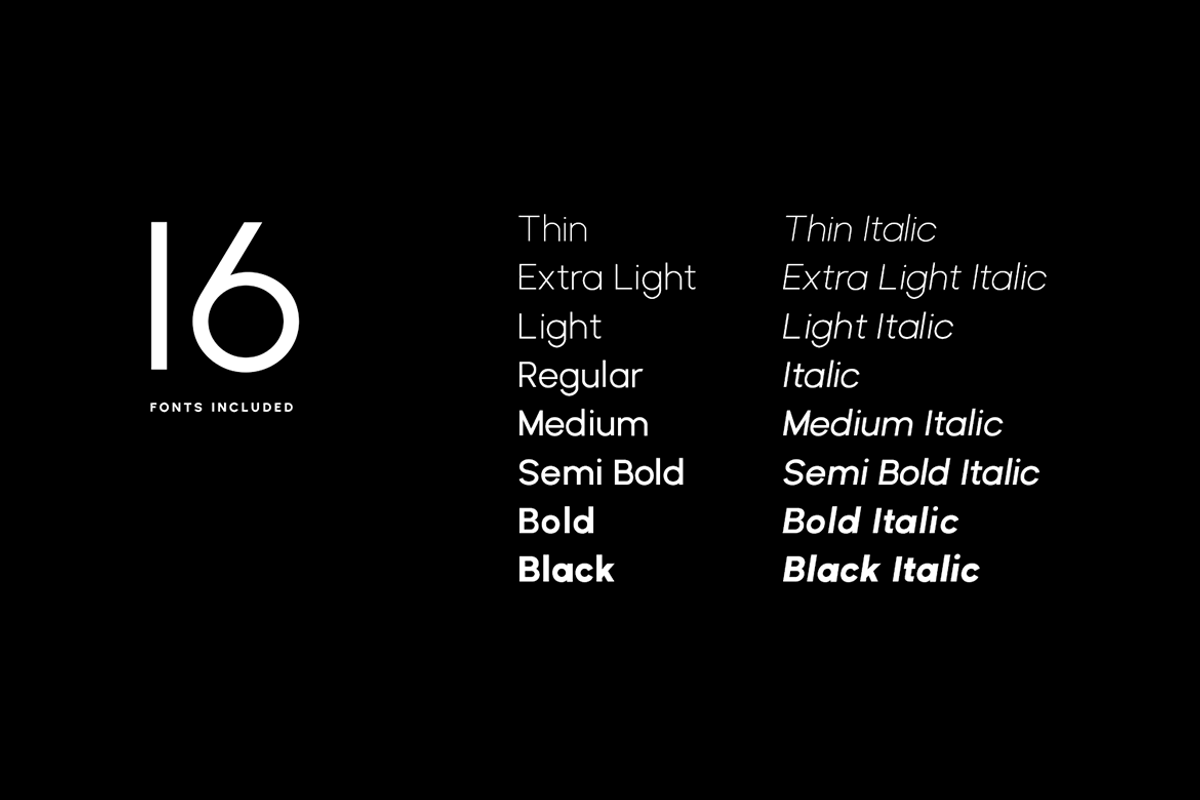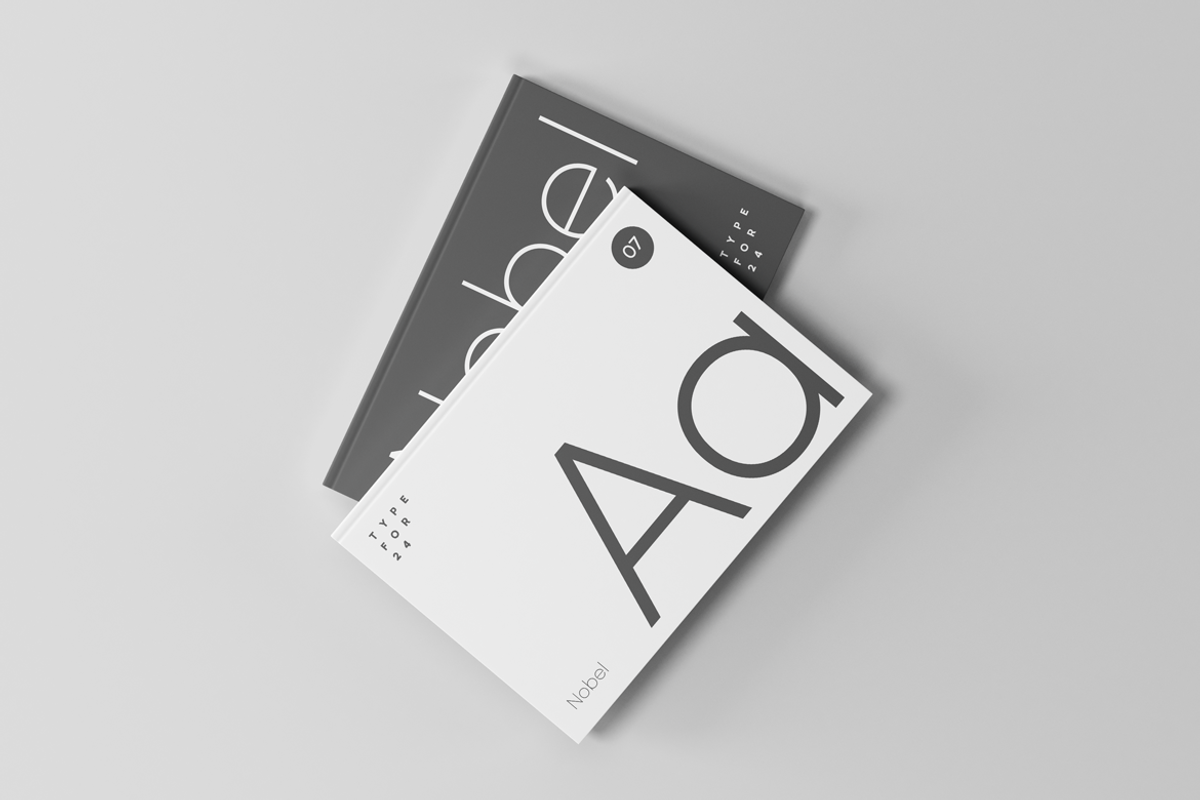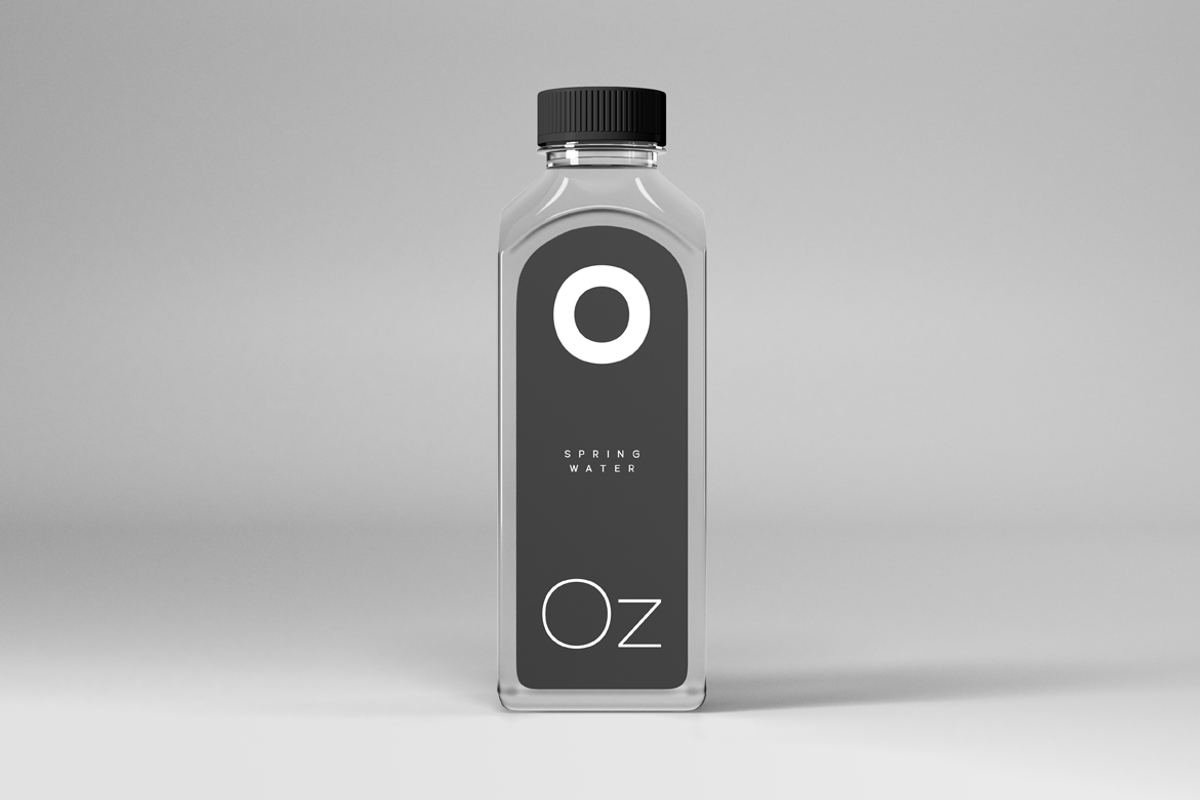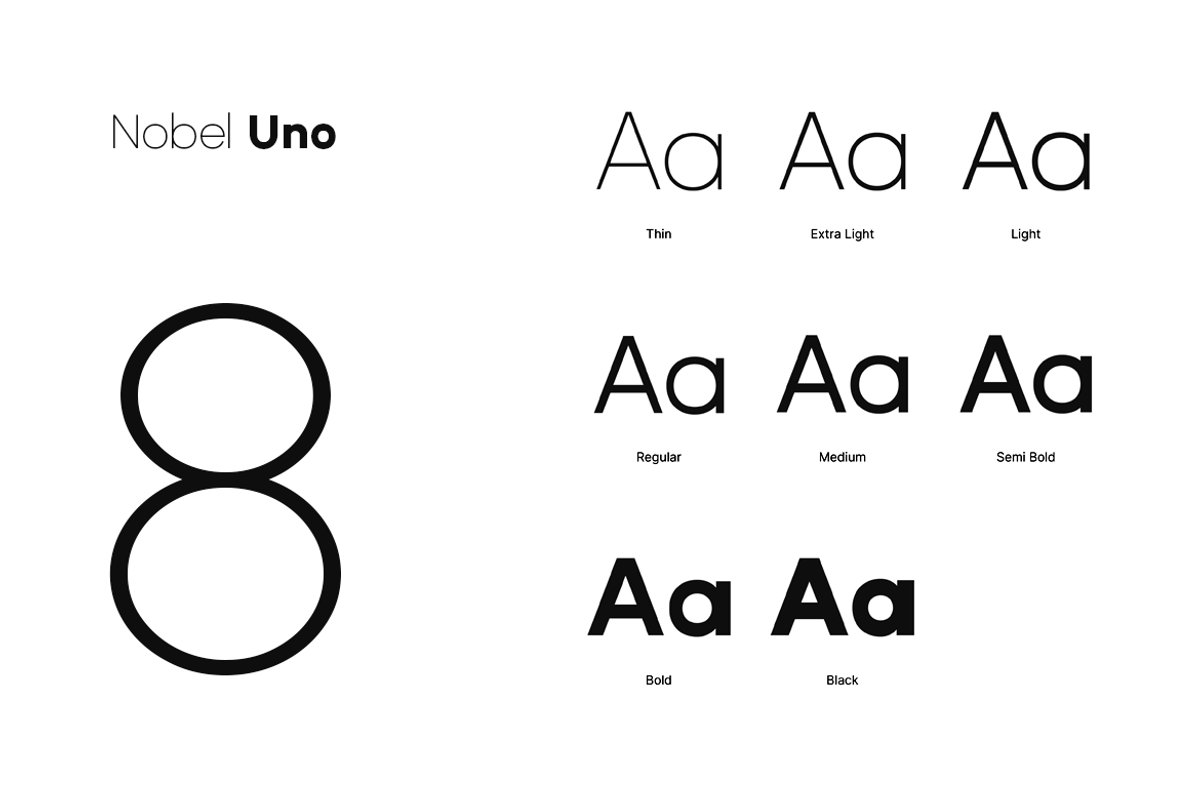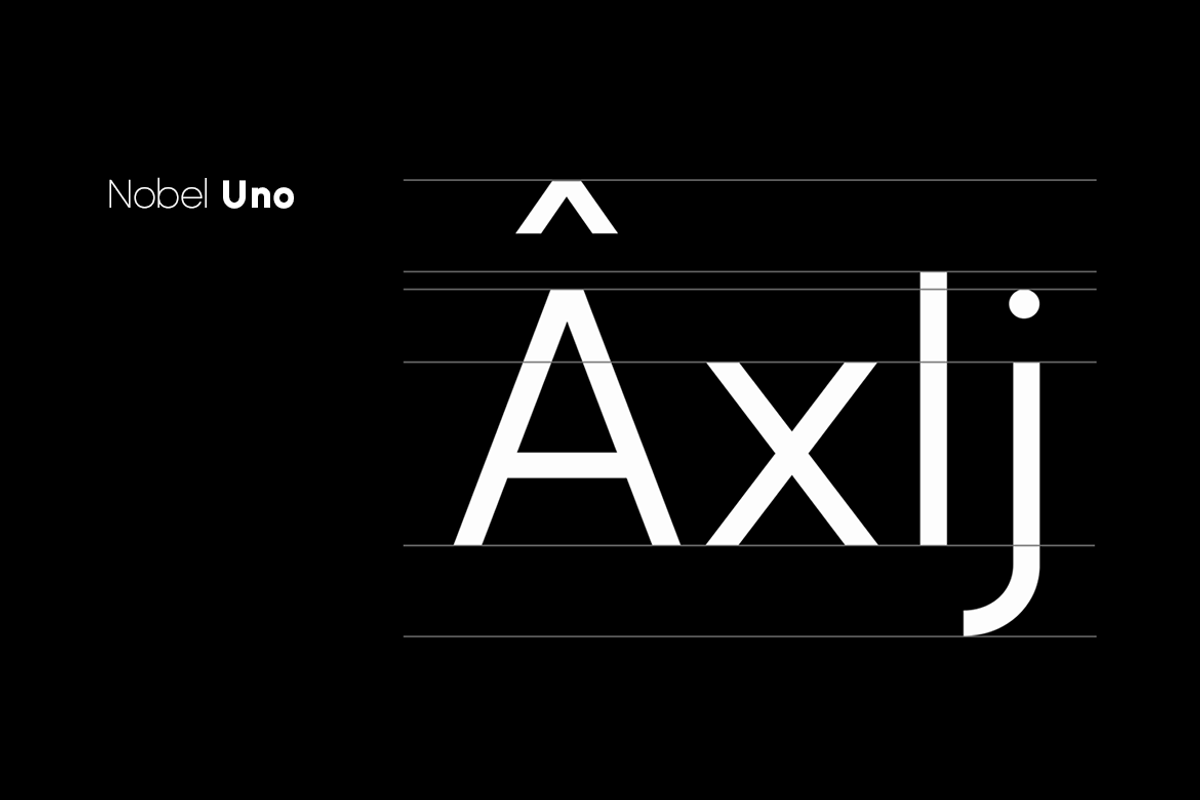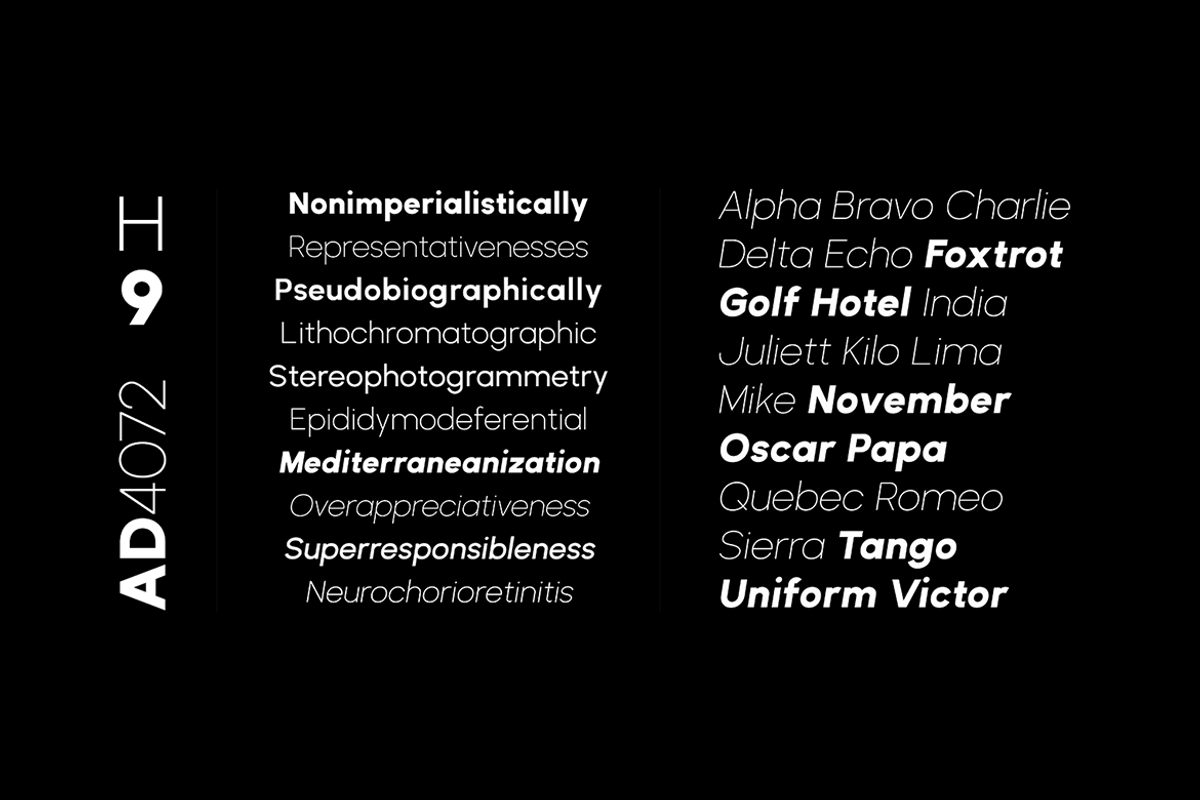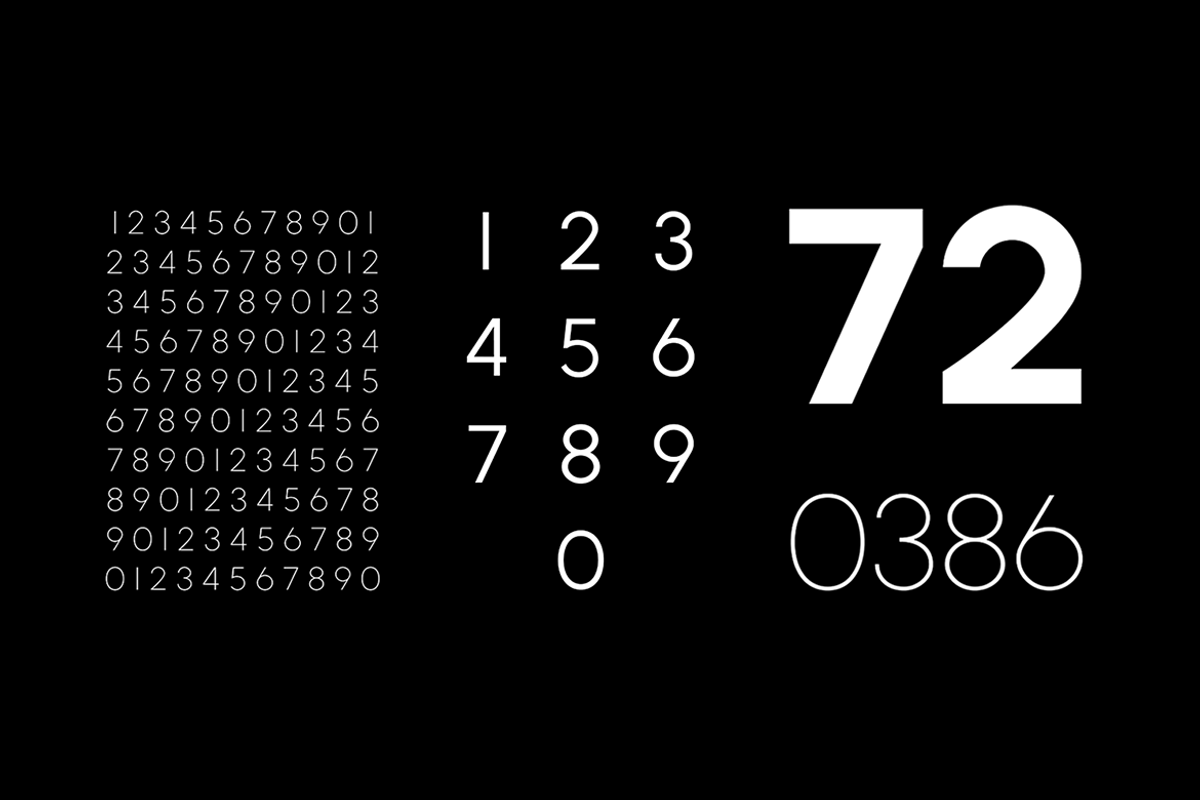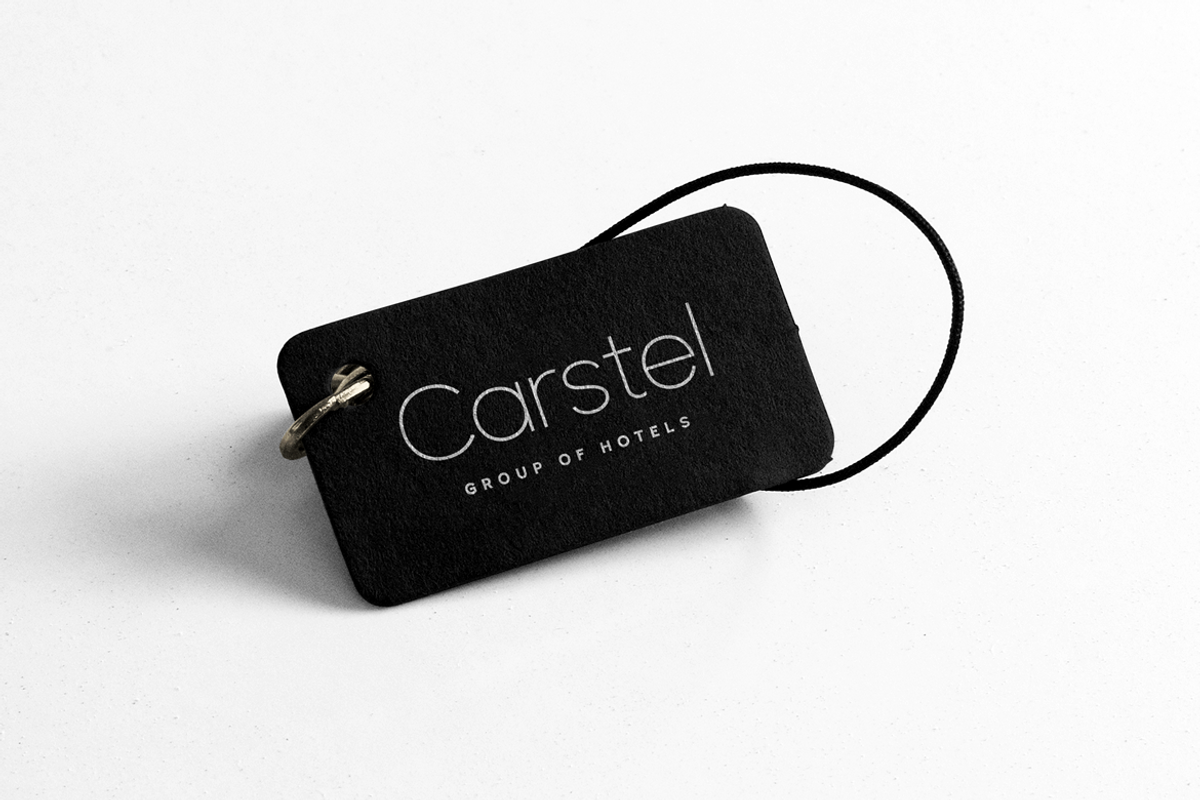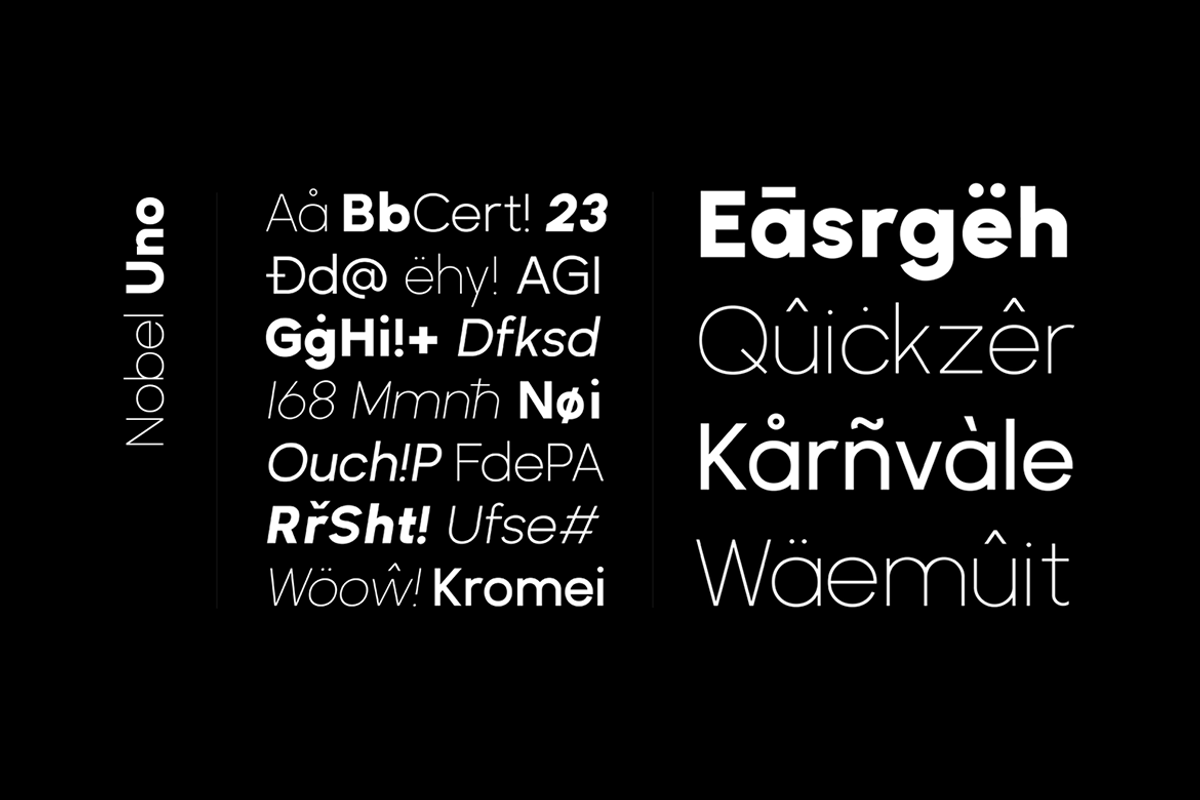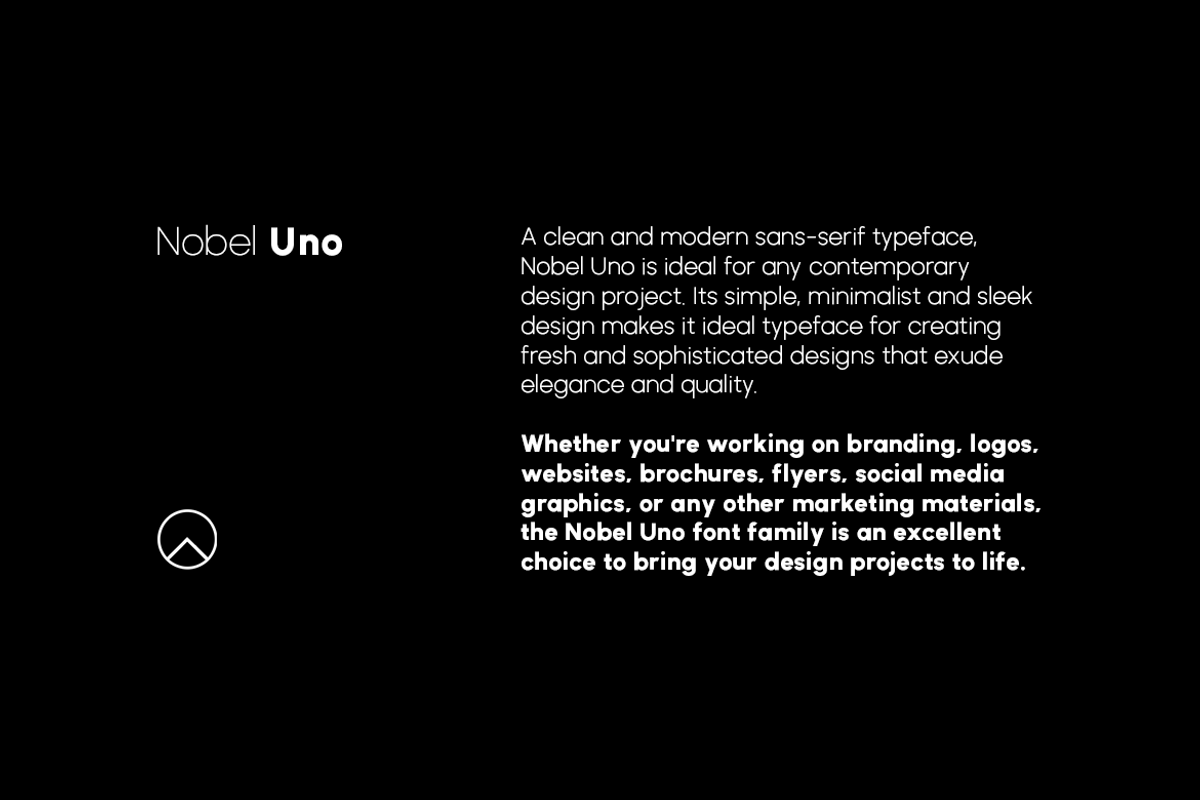
NOBEL UNO - Modern Font Family
ABOUT THE TYPEFACE:
A clean and modern sans-serif typeface, Nobel Uno is ideal for any contemporary design project. It is the fourth typeface from our Uno class font families, which is one of the most advanced and feature-loaded fonts in our portfolio.
Nobel Uno comes in 16 fonts featuring 08 weights of uprights and its matching italics. Designed with powerful opentype features in mind. Each weight includes extended character set featuring 386 glyphs providing support for 120+ languages. This typeface is perfectly suited for graphic design, display, branding and marketing use. It could easily work for web, social media, digital marketing, signage, corporate as well as for editorial design. Adding extra letter spacing will make this font the perfect choice for minimal headlines and logotypes, as shown in the promo designs attached.
The Nobel Uno font family includes 16 fonts in total, with eight upright weights and Italic equivalents of all eight weights as follows:
- Thin
- Thin Italic
- ExtraLight
- ExtraLight Italic
- Light
- Light Italic
- Italic
- Medium
- Medium Italic
- SemiBold
- SemiBold Italic
- Bold
- Bold Italic
- Black
- Black Italic
386 GLYPHS INCLUDED:
Handcrafted and designed with powerful OpenType features in mind, each weight includes extended language support with Western European, Central European, and South Eastern European sets. A total of 386 glyphs are available.
EXTENSIVE LANGUAGE SUPPORT:
Afrikaans • Albanian • Asu • Azerbaijani • Basque • Bemba • Bena • Bosnian • Catalan • Cebuano • Chiga • Colognian • Cornish • Corsican • Croatian • Czech • Danish • Dutch • Embu • English • Estonian • Faroese • Filipino • Finnish • French • Friulian • Galician • German • Gusii • Hungarian • Icelandic • Ido • Indonesian • Interlingua • Interlingue • Irish • Italian • Javanese • Jju • Kabuverdianu • Kaingang • Kalaallisut • Kalenjin • Kamba • Kikuyu • Kinyarwanda • Kurdish • Latvian • Ligurian • Lithuanian • Lojban • Lombard • Low German • Lower Sorbian • Luo • Luxembourgish • Luyia • Machame • Makhuwa • Makhuwa-Meetto • Makonde • Malagasy • Malay • Maltese • Manx • Māori • Meru • Morisyen • Nheengatu • North Ndebele • Northern Sotho • Norwegian Bokmål • Norwegian Nynorsk • Nyanja • Nyankole • Occitan • Oromo • Polish • Portuguese • Rejang • Romanian • Romansh • Rombo • Rundi • Rwa • Samburu • Sango • Sangu • Sardinian • Scottish Gaelic • Sena • Shambala • Shona • Slovak • Slovenian • Soga • Somali • South Ndebele • Southern Sotho • Spanish • Sundanese • Swahili • Swati • Swedish • Swiss German • Taita • Taroko • Teso • Tsonga • Tswana • Turkish • Turkmen • Upper Sorbian • Vunjo • Walloon • Walser • Welsh • Western Frisian • Wolastoqey • Xhosa • Zhuang • Zulu
Scripts: Latin